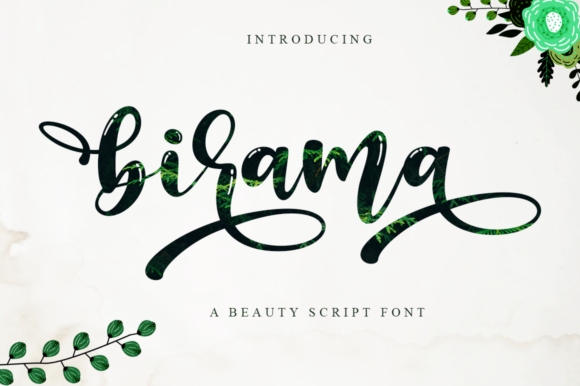
Discover the Elegance of Birama Font: A Hand-Lettered Script Font with Gorgeous Swashes
In the world of typography, few fonts manage to capture the essence of elegance and charm as effectively as the Birama Font. This carefully hand-lettered script font has been turning heads with its contemporary allure, making it a favorite among designers and crafters alike. With its gorgeous swashes and fluid strokes, Birama Font is the perfect choice for projects that demand a touch of sophistication and personality.
The Story Behind Birama Font
Birama Font is the brainchild of talented typographers who sought to create a font that would blend the beauty of traditional calligraphy with the versatility of modern digital design. The result is a script font that exudes a sense of luxury and refinement, making it ideal for a wide range of applications, from branding and advertising to packaging and stationery.
What Makes Birama Font Stand Out?
So, what sets Birama Font apart from other script fonts on the market? Here are a few key features that make it a standout choice:
- Hand-lettered with love: Birama Font is meticulously crafted by hand, giving it a unique and personal touch that is hard to find in digital fonts.
- Gorgeous swashes: The font comes with a range of beautiful swashes that can be used to add a decorative touch to your designs.
- Contemporary charm: Birama Font has a modern feel that makes it perfect for designers who want to create fresh and stylish designs.
- Highly versatile: The font can be used for a wide range of projects, from logos and branding to invitations and social media graphics.
Using Birama Font in Your Designs
One of the best things about Birama Font is how easy it is to use. Whether you’re a seasoned designer or a crafty DIY enthusiast, you can easily incorporate this beautiful font into your projects. Here are a few tips to get you started:
- Pair it with bold fonts: Birama Font looks stunning when paired with bold, sans-serif fonts. Try using it in combination with a font like Arial Black or Helvetica Bold.
- Experiment with swashes: Don’t be afraid to get creative with the swashes that come with Birama Font. You can use them to add a decorative touch to your designs or to create a sense of movement and flow.
- Use it for headlines and titles: Birama Font is perfect for headlines and titles, where its elegant and refined appearance can really shine.
Birama Font in the World of Design
Birama Font has quickly become a favorite among designers and crafters, and it’s easy to see why. Its unique blend of traditional elegance and modern charm makes it a versatile choice that can be used in a wide range of design applications. Here are a few examples of how Birama Font is being used in the world of design:
- Branding and logos: Birama Font is a popular choice for branding and logos, where its elegant and refined appearance can help to create a lasting impression.
- Wedding and event design: The font’s beautiful swashes and elegant appearance make it a popular choice for wedding and event design, where it’s often used for invitations, programs, and other materials.
- Packaging and product design: Birama Font can add a touch of luxury and sophistication to packaging and product design, making it a great choice for brands that want to stand out.
In conclusion, Birama Font is a truly special font that offers a unique blend of elegance, charm, and versatility. Whether you’re a designer, crafter, or simply someone who appreciates beautiful typography, Birama Font is definitely worth checking out. With its gorgeous swashes, contemporary charm, and highly versatile design, it’s the perfect choice for any project that demands a touch of sophistication and style.